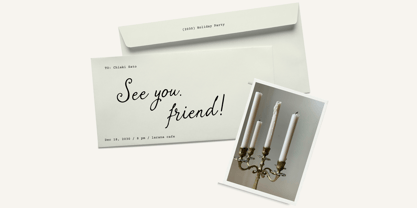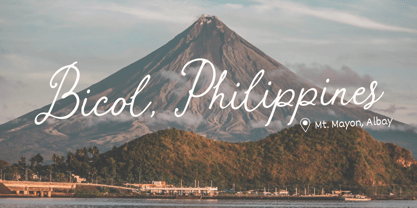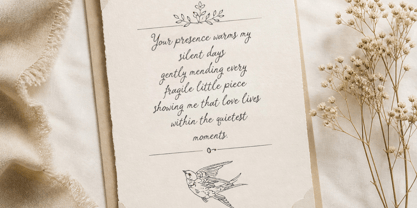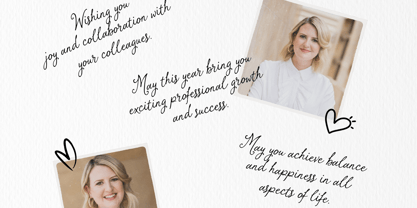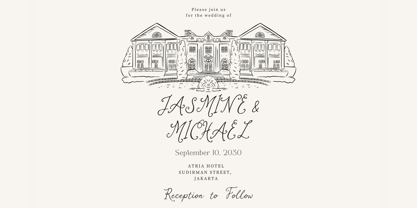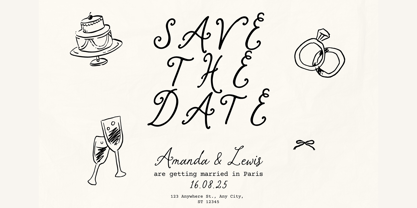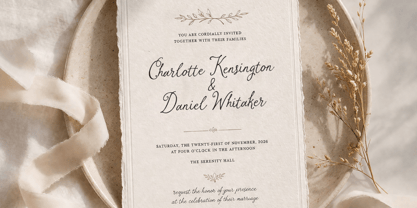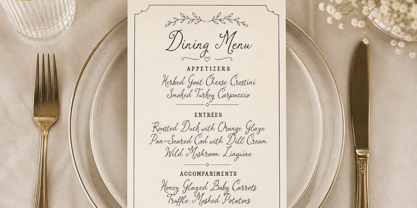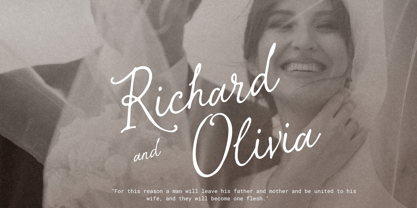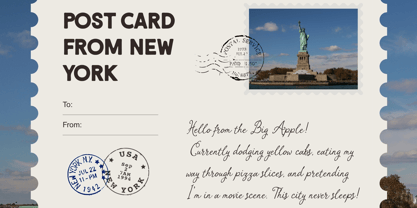
Charite Atelier
by Heinzel Std
Charite Atelier is a graceful handmade script font that captures the essence of elegance, romance, and timeless beauty. Designed with flowing curves and delicate strokes, this font brings a natural handwritten feel that is both sophisticated and personal. Every letter is carefully crafted to create smooth connections, making it perfect for projects that require a refined and artistic touch.
With its stylish ligatures and balanced letterforms, Charité Atelier delivers a seamless writing experience ideal for branding, wedding invitations, logos, social media graphics, packaging, and editorial designs. The font radiates warmth and charm, making it especially suitable for feminine and luxury-themed projects.